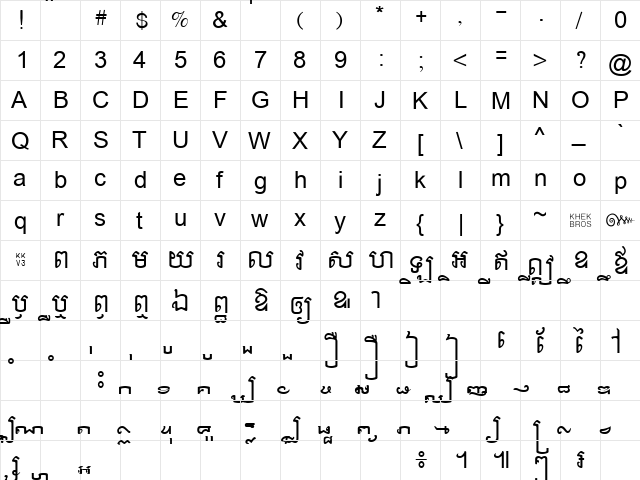
Anlongvill Khek1 Regular
Design Context for Anlongvill Khek1 Typeface
Anlongvill Khek1 is a composed and adaptable typeface that performs quietly and consistently across a wide range of design contexts.